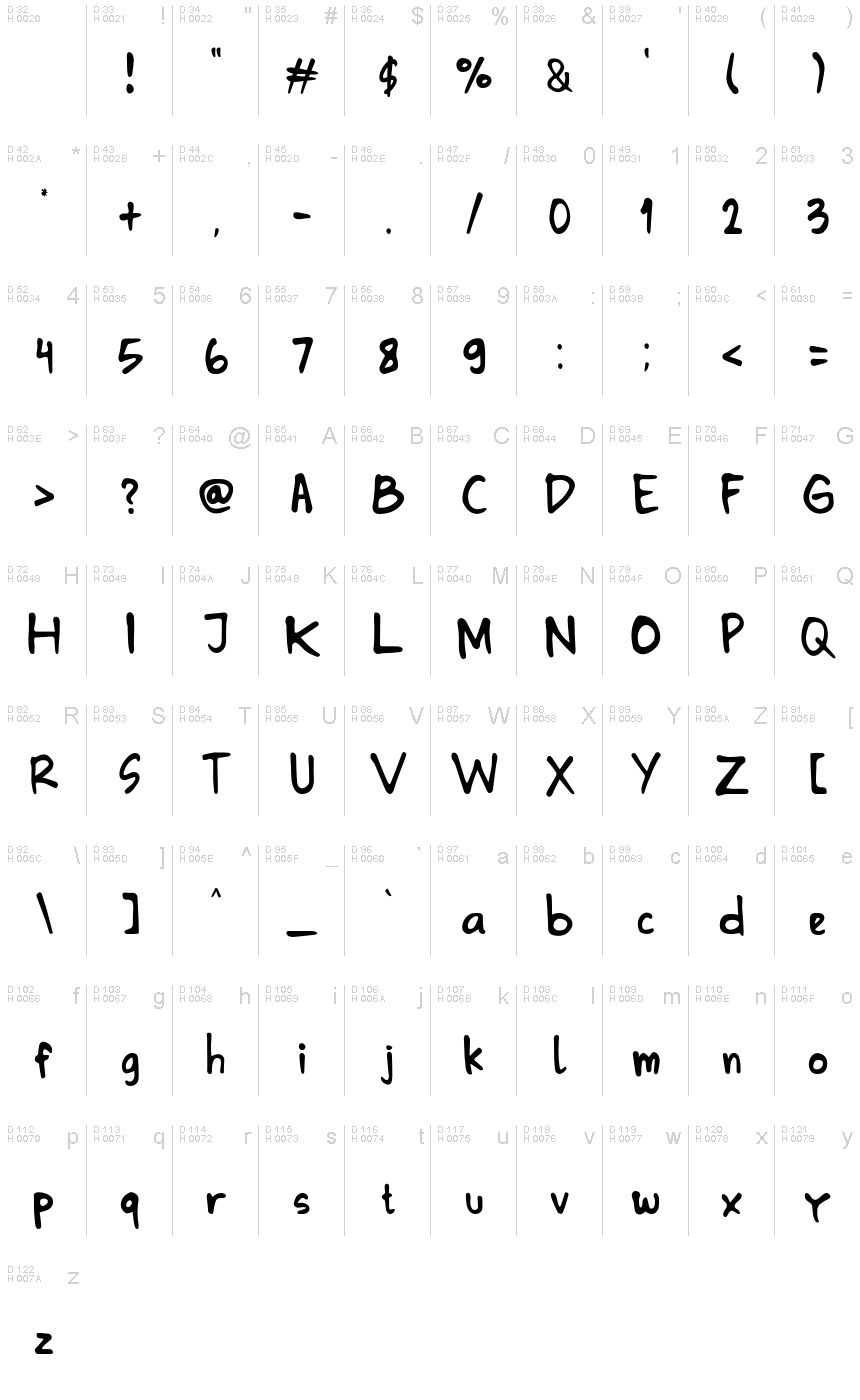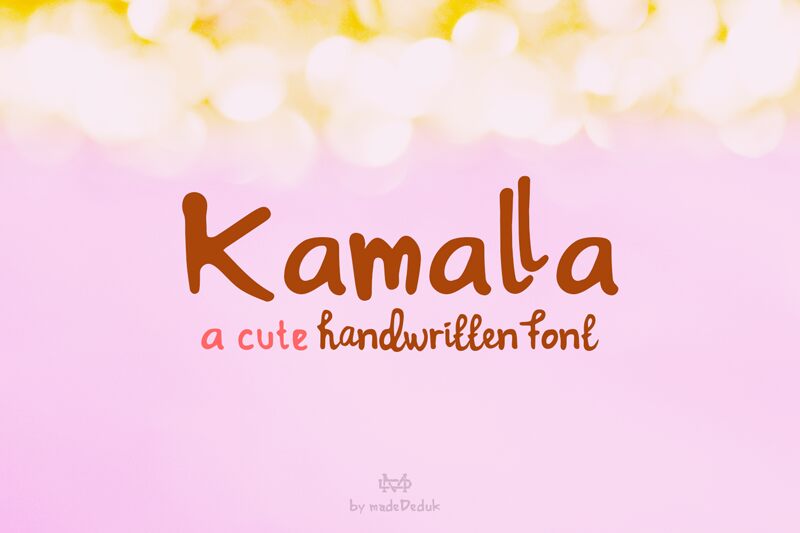
Kamalla Demo Medium
Kamalla font is a free handwritten font designed by madeDeduk. Organic, casual, and friendly at any project with its smooth flow and cheerful mood. Kamalla features an approachable aesthetic that can give warm welcoming feelings to the viewer through beautiful typographic illustrations. Highlight headings, titles, or even whole paragraphs of text with zero worries about the outcome.